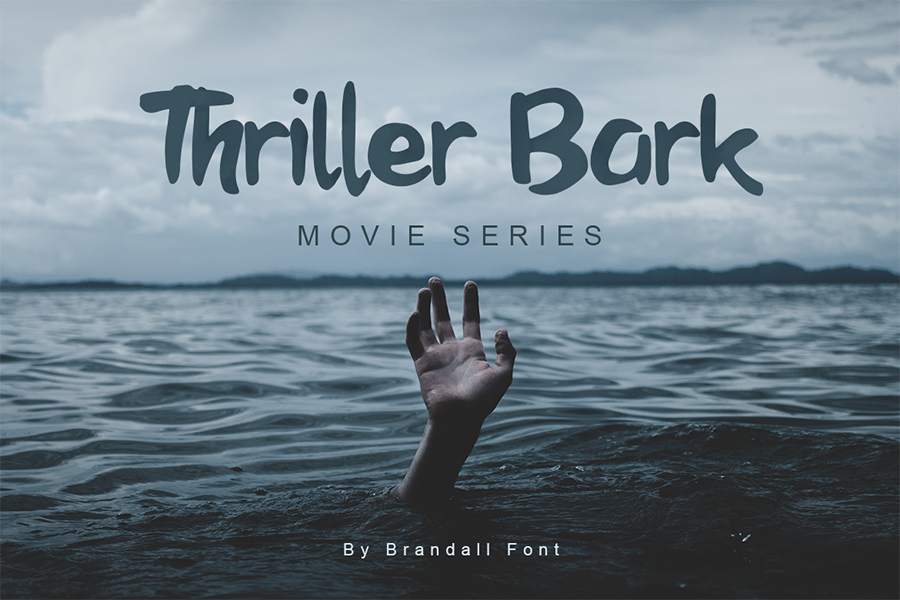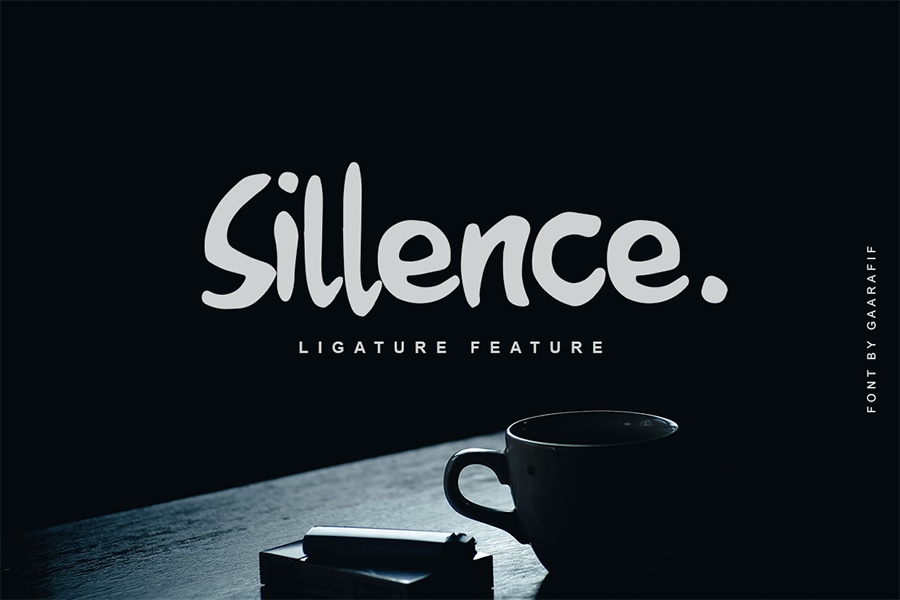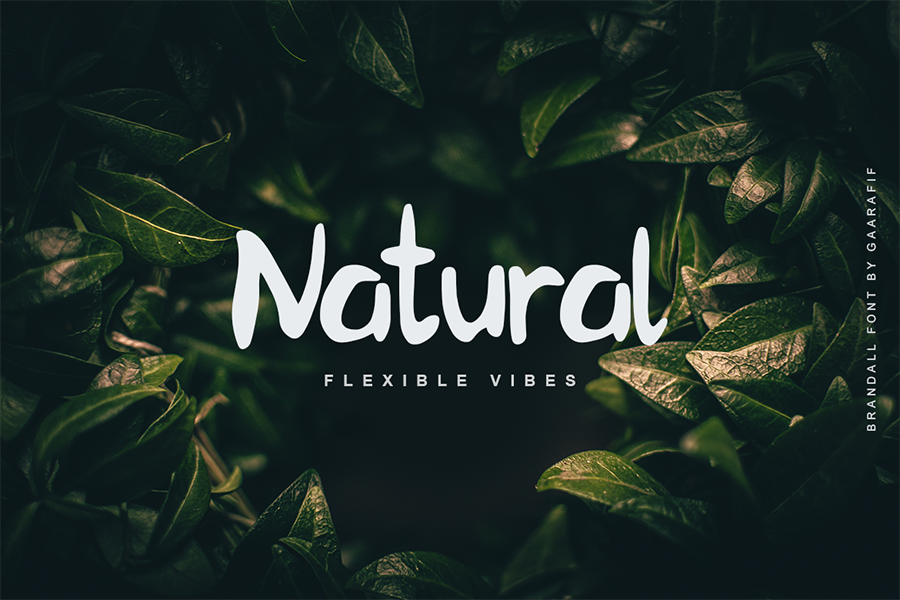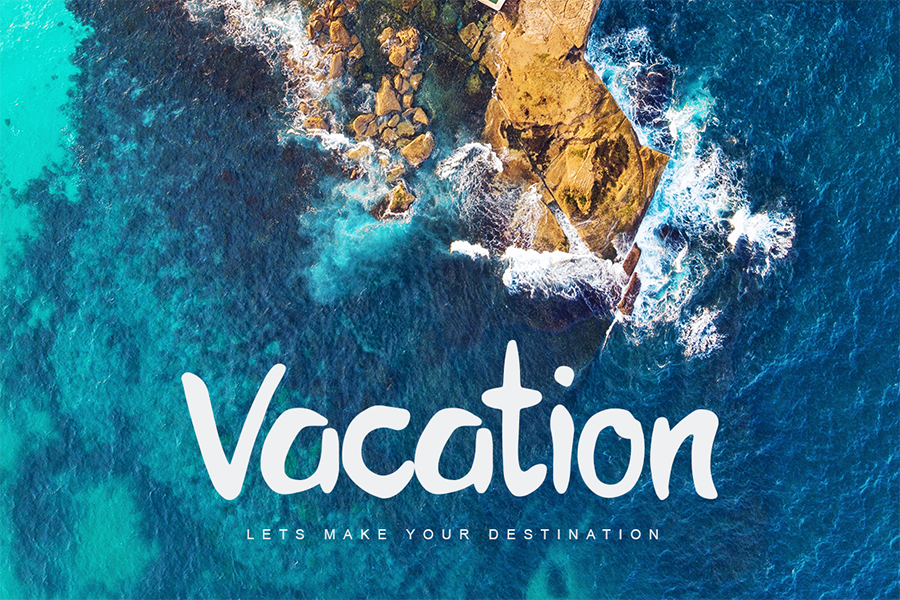
Autumn Free Display Font
Autumn Free Display Font is a simple bold and fun display font from Afif Rosadi. As you can see, this font can work well on branding, logo, headline, apparel design, prints, and other display purposes.